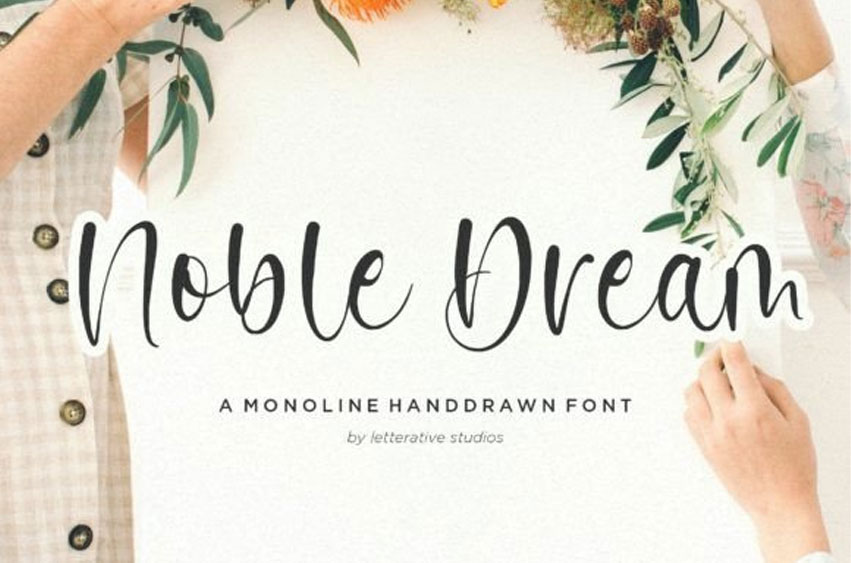
Noble Dream Font is a stylish and trendy handwritten script font. It maintains its classy calligraphic influences while feeling contemporary and fresh.